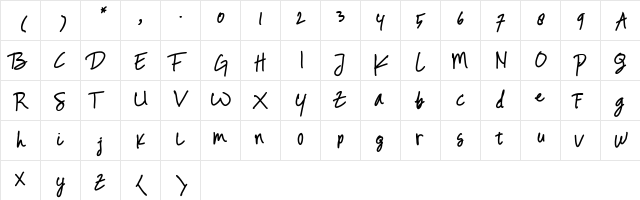
Ghaziyah Regular
| Foundry | Mightype |
| Designer | Munawir |
Design Context for Ghaziyah Typeface
Ghaziyah is a composed and adaptable typeface that performs quietly and consistently across a wide range of design contexts.